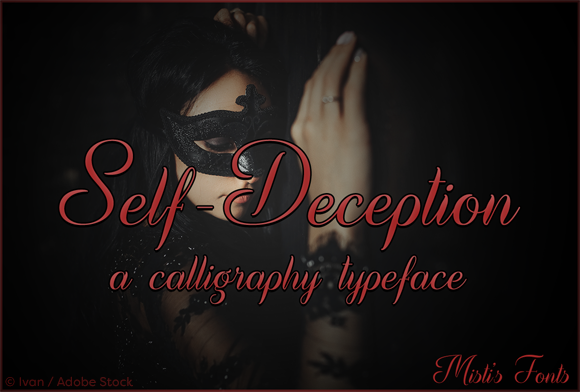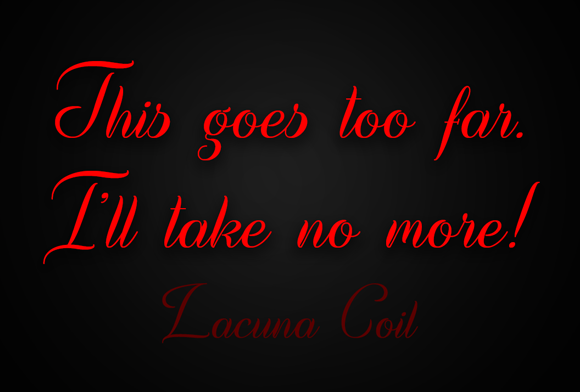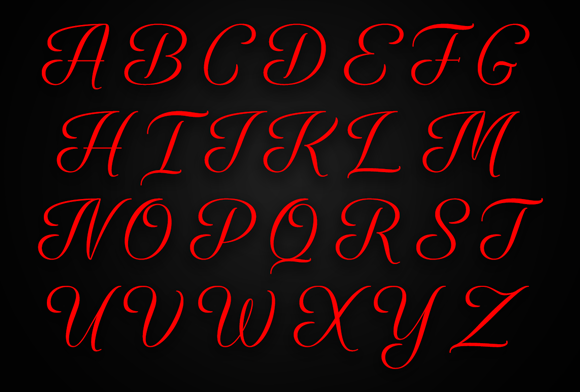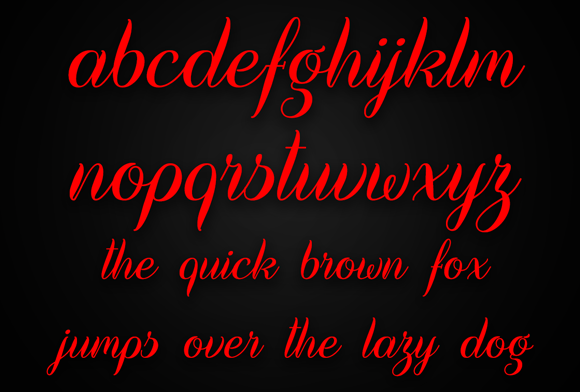
Self-Deception Font
Self-Deception is an elegant calligraphy typeface that is perfect for wedding invitations, logos, product labels and so much more!